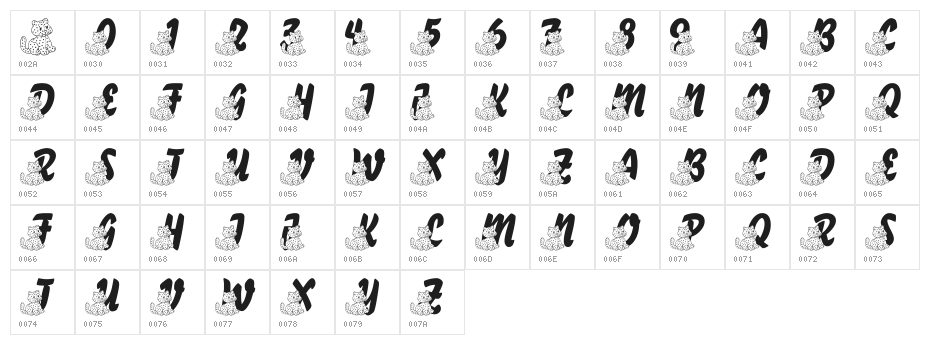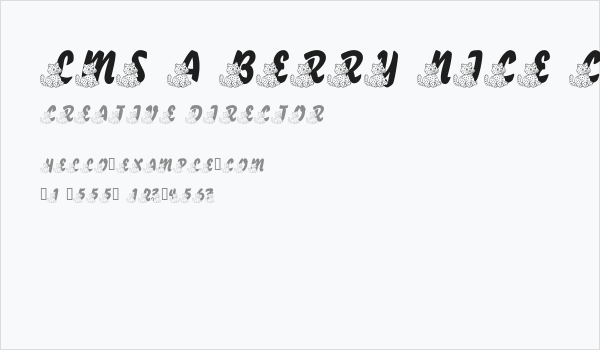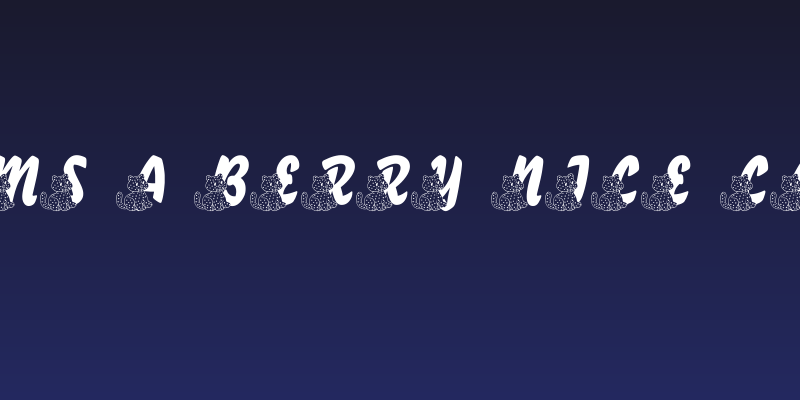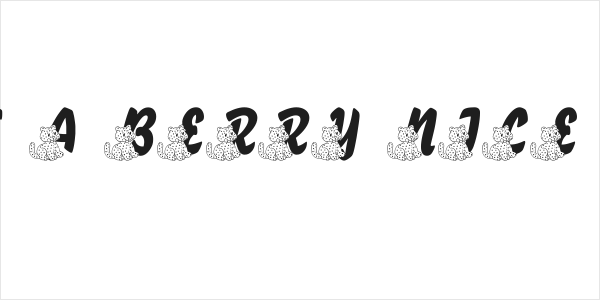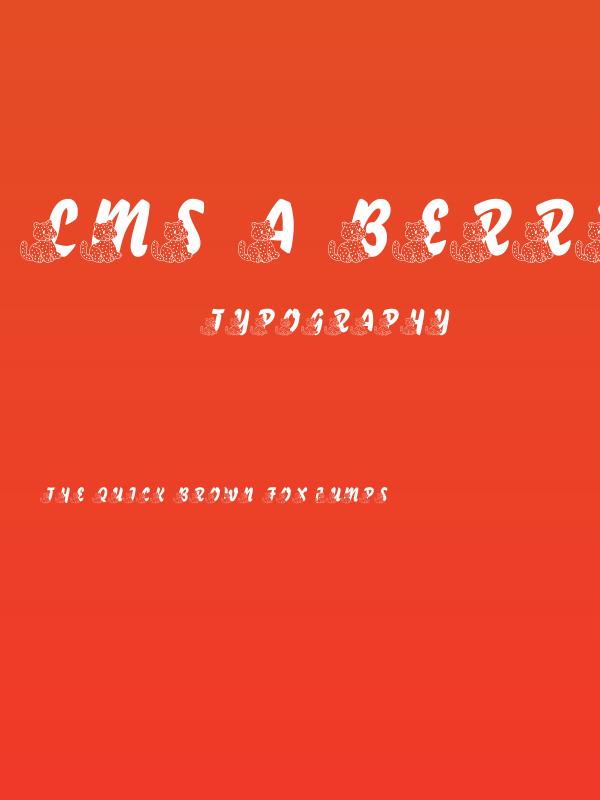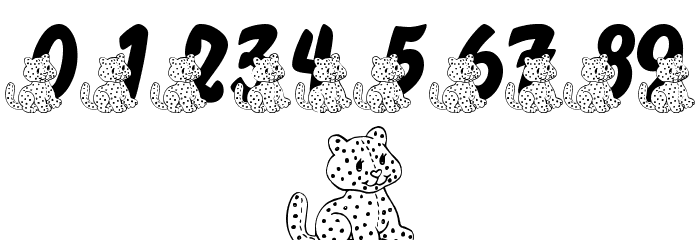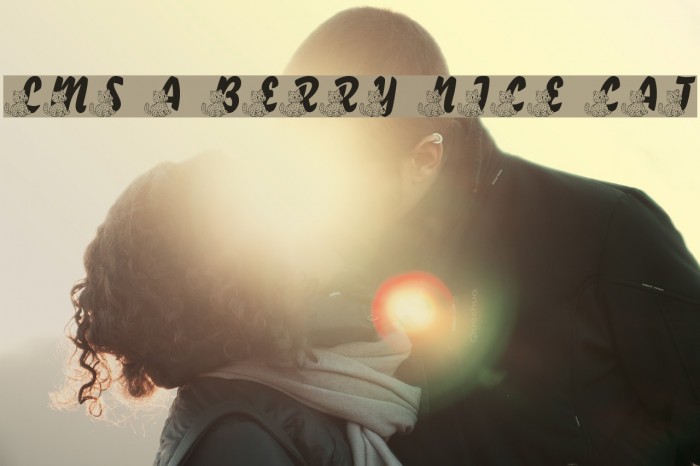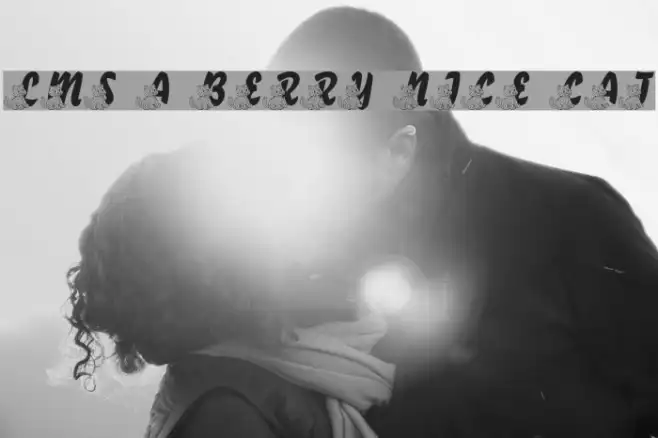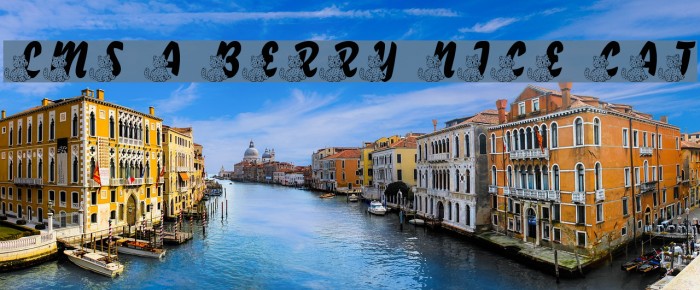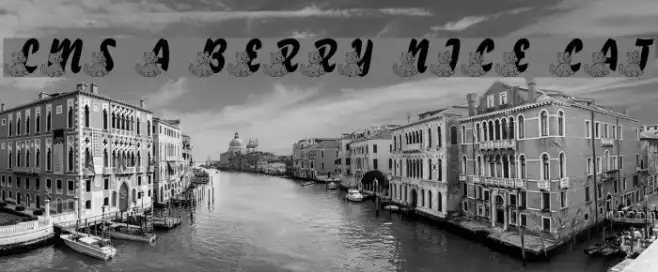
LMS A Berry Nice Cat Font
LMS A Berry Nice Cat Description
This playful and whimsical font features bold, rounded characters with a unique twist—each letter is accompanied by a charming, cartoon-style cat. The cats are integrated into the design, adding a delightful and fun element to the typography. The font maintains a consistent style across uppercase, lowercase, and numeric characters, with the cats providing a consistent visual theme. The characters are bold and have a moderate contrast, making them stand out while still being legible. This font is perfect for projects that require a touch of humor and creativity, such as children's books, playful branding, or quirky invitations.
| Overall Style | Whimsical |
| Use Case | Headlines, Logos, Decorative text |
| Proposed Projects | Ideal for children's books, playful branding, quirky invitations, and creative projects. |